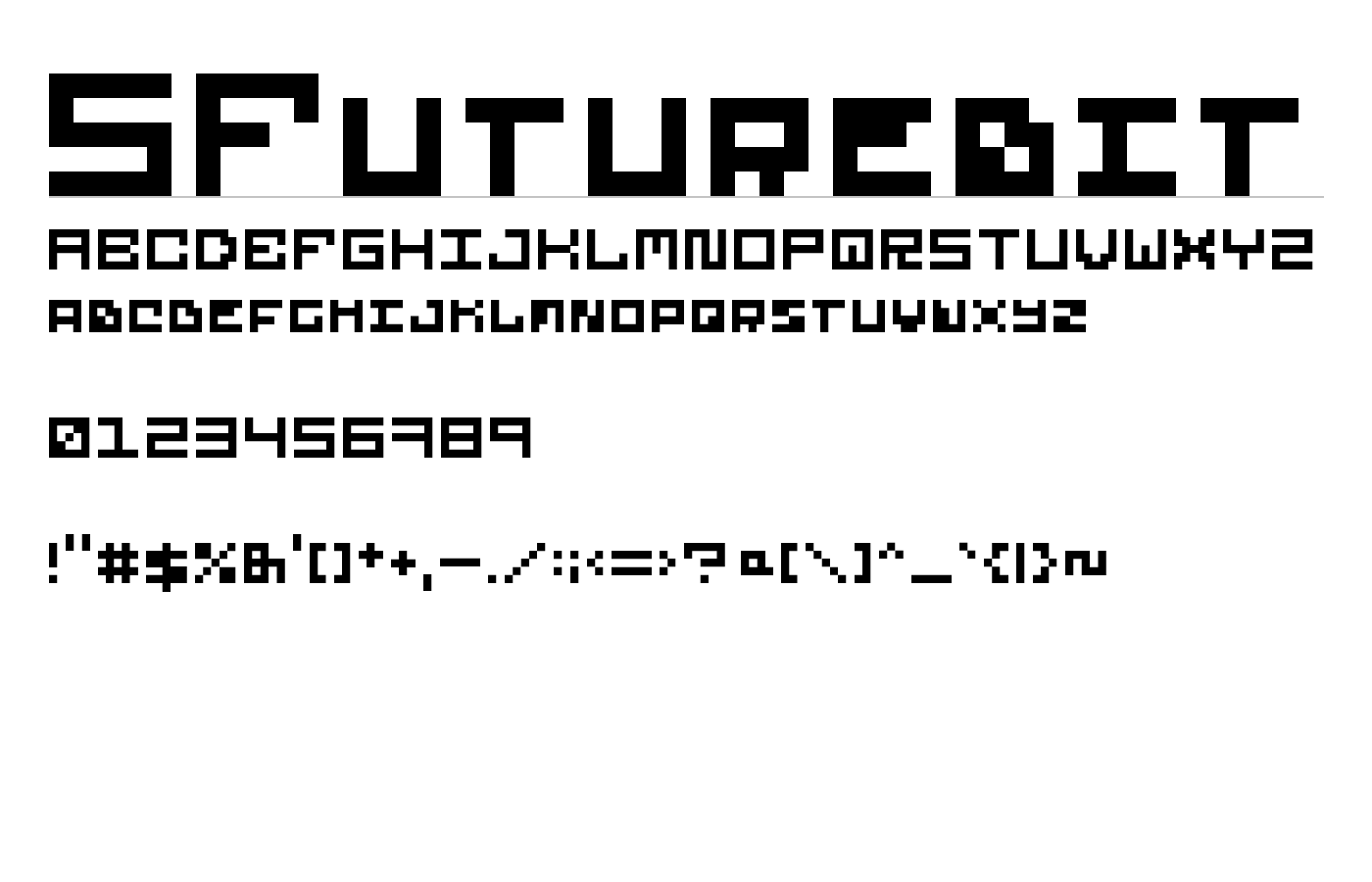
5Futurebit is a bold, geometric sans serif font with a pixelated, blocky style that evokes a retro digital or gaming aesthetic. Its uniform stroke width and sharp, angular shapes create a tech-forward, modern feel, making it ideal for video game graphics, digital interfaces, or futuristic branding. This font works best in display settings where its unique, eye-catching design can shine in logos, headlines, and posters.
5Futurebit Font
About 5Futurebit Font
| Designer | Noah - 11 year old typomaniac |